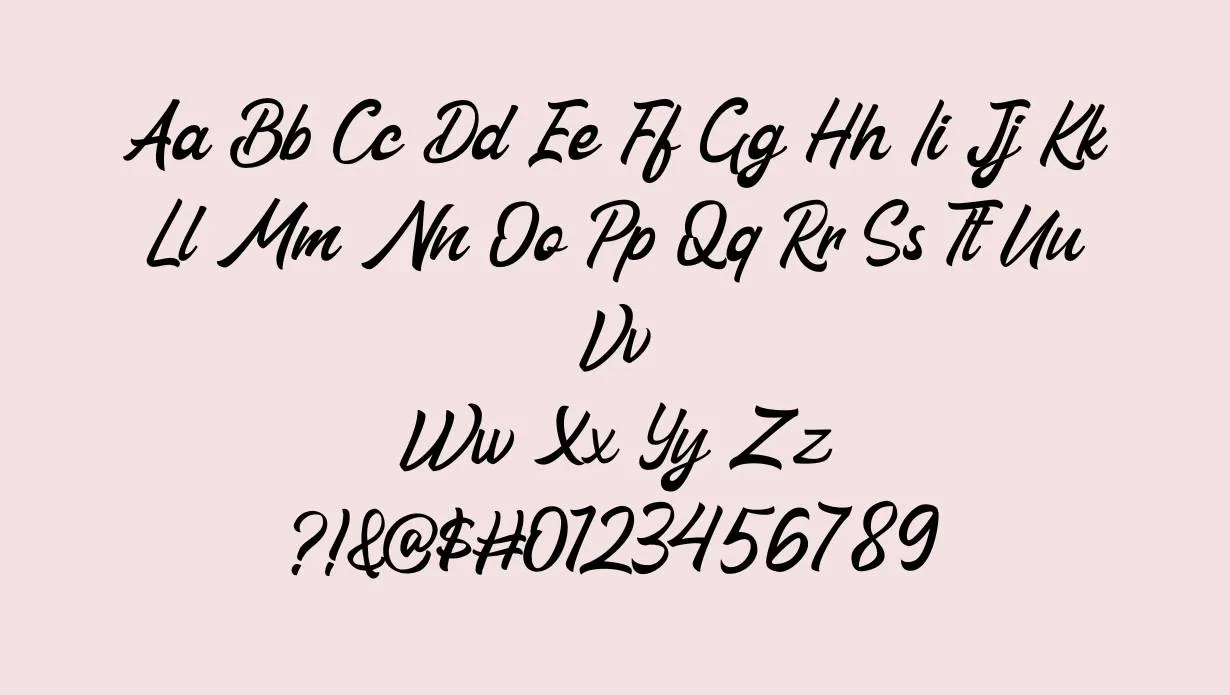
Nathan Vintage Script Font is a graceful and flowing script typeface with a touch of vintage charm.
While I don’t have specific information about the designer, this font is commonly chosen for elegant branding, wedding invitations, and designs that require a timeless and romantic feel.
Its cursive style and graceful strokes create a sense of sophistication and charm in your projects. For a design that is distinct and visually striking, consider combining this font with the Kaushan Script Font.